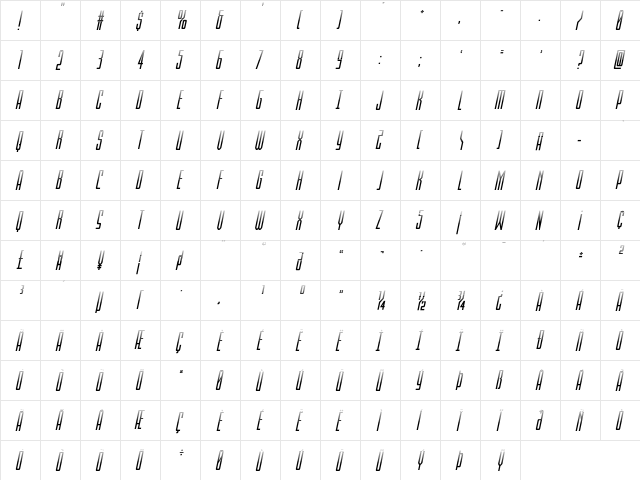
Blue Cobra Halftone Italic Regular
Design Context for Blue Cobra Halftone Italic Typeface
Blue Cobra Halftone Italic is a composed and adaptable typeface that performs quietly and consistently across a wide range of design contexts. The dynamic lean of this cut emphasises speed and emphasis in any layout.
Pro Tip: Try Blue Cobra Halftone Italic for annotation and caption copy alongside an upright companion — the contrast in angle creates a dynamic but ordered typographic system.